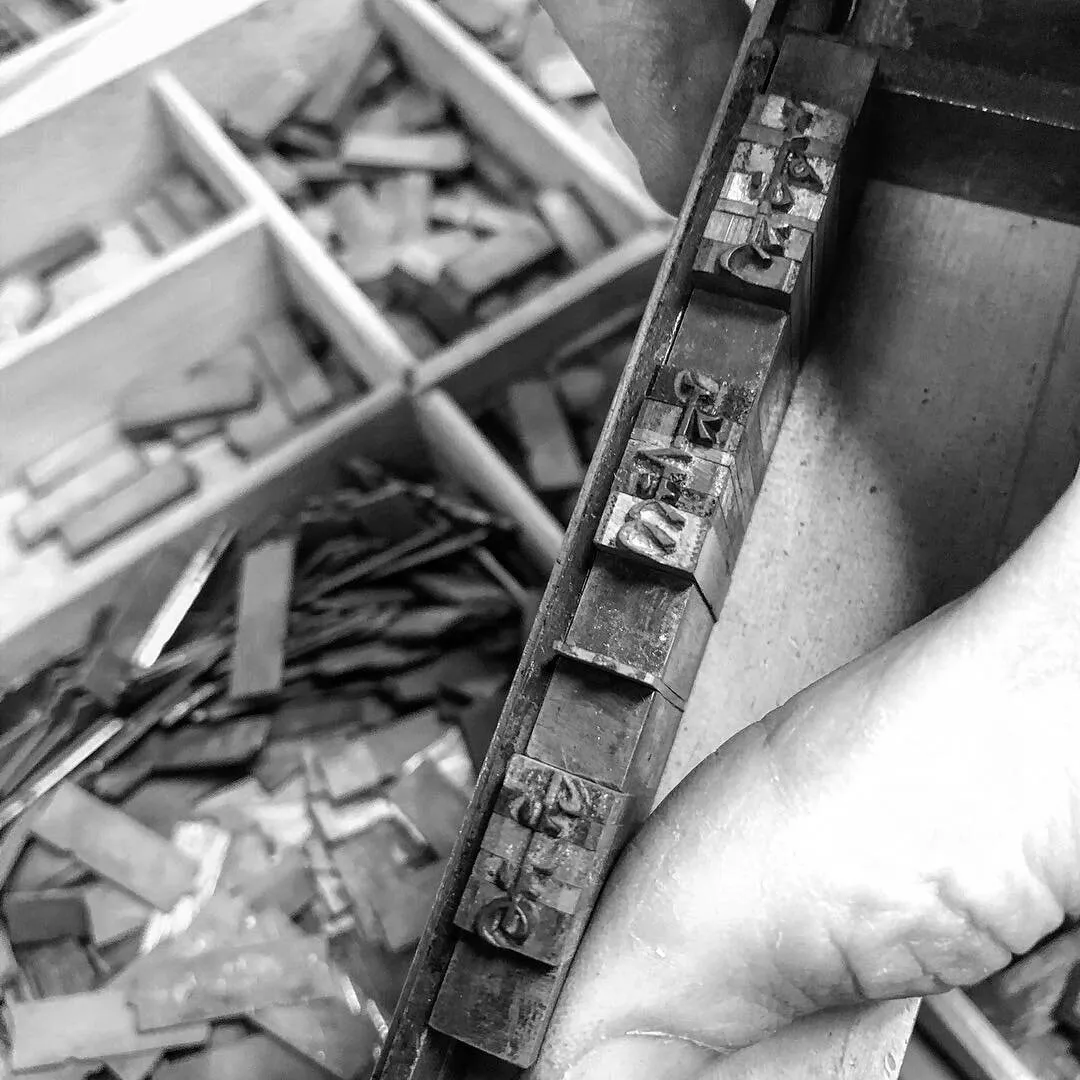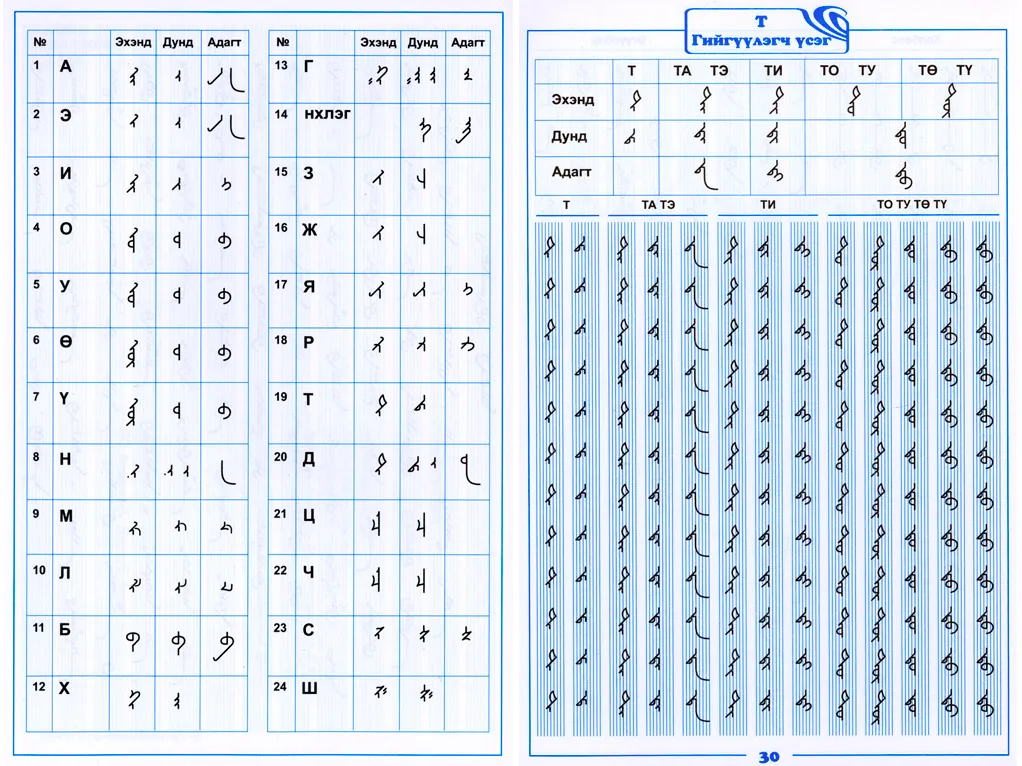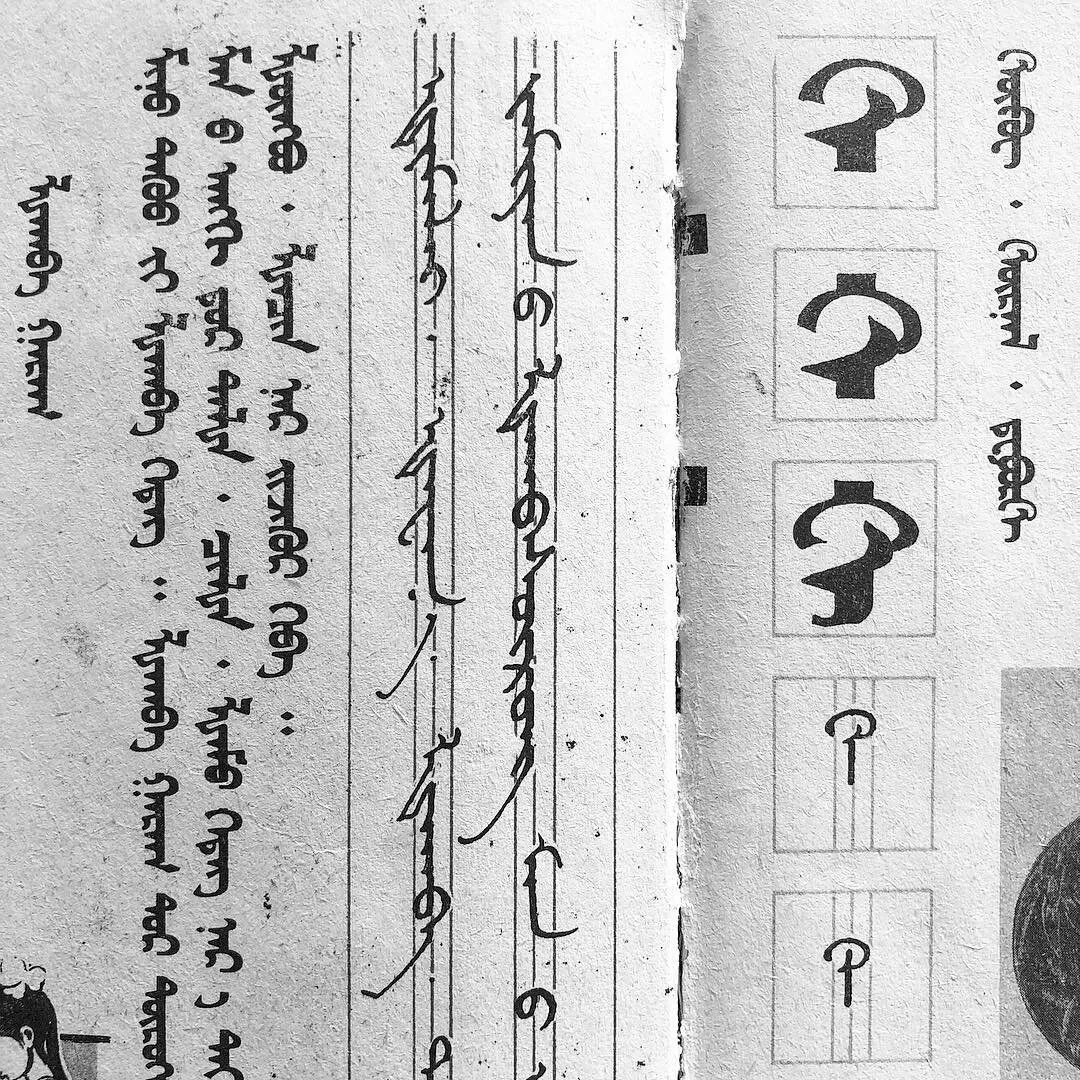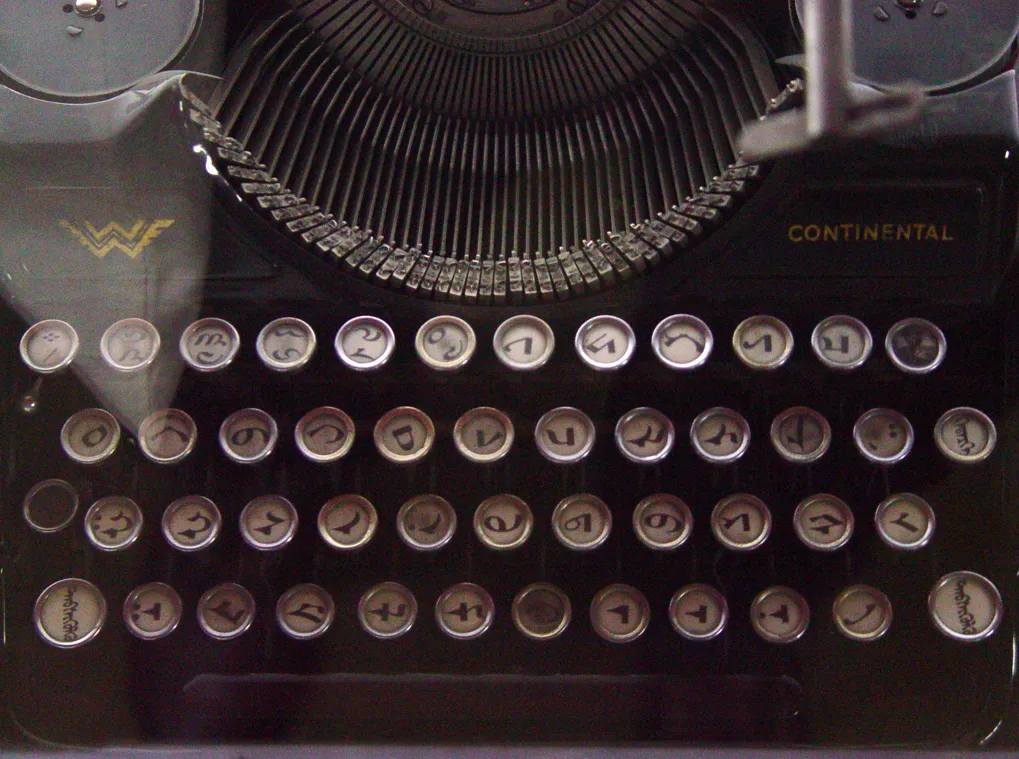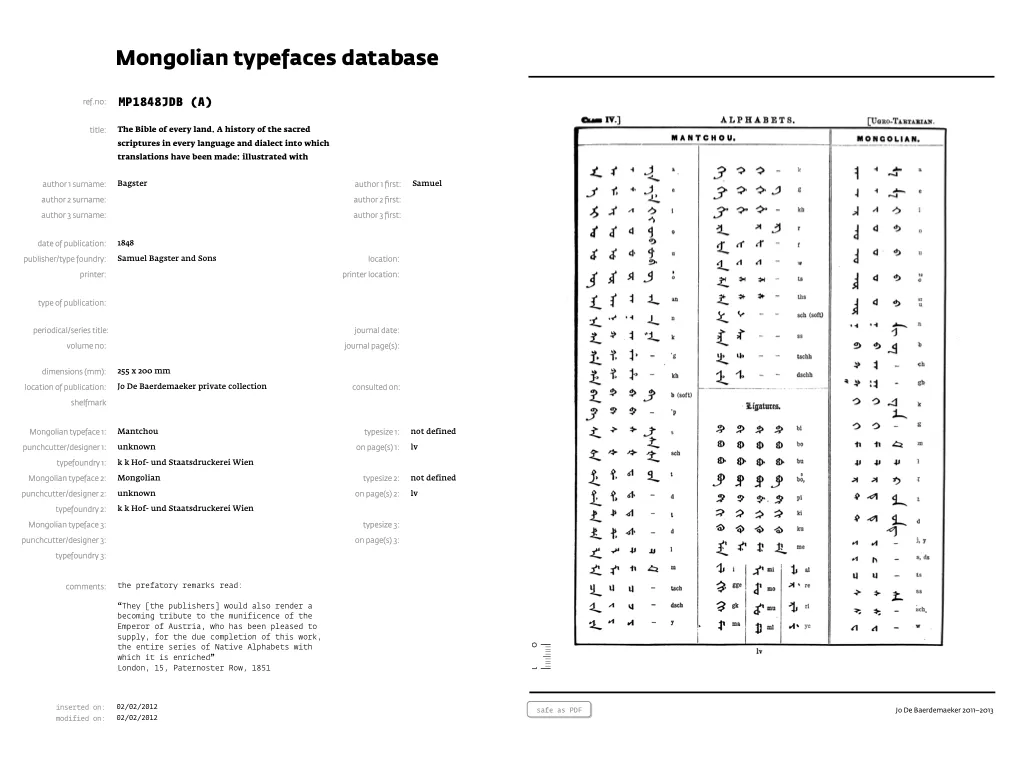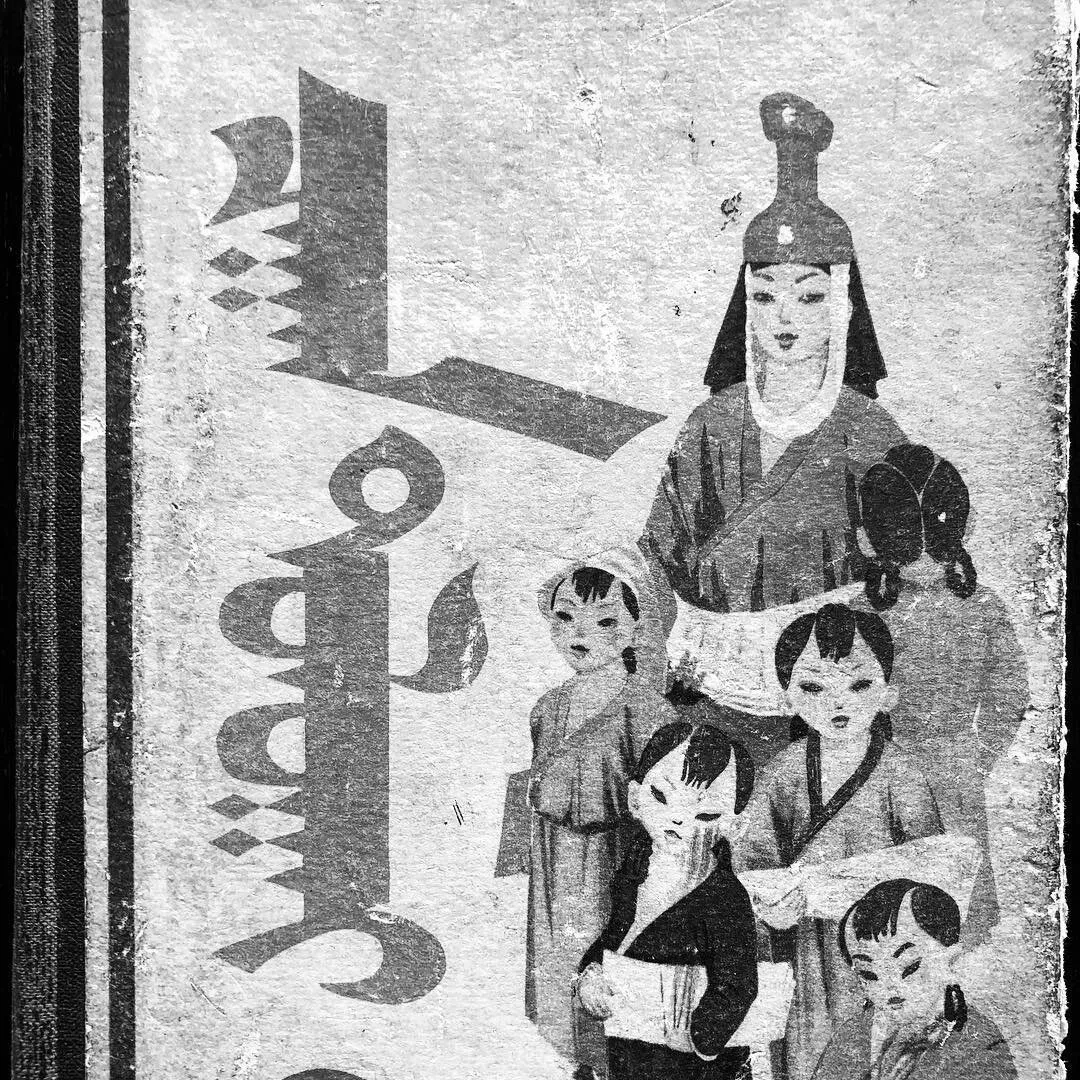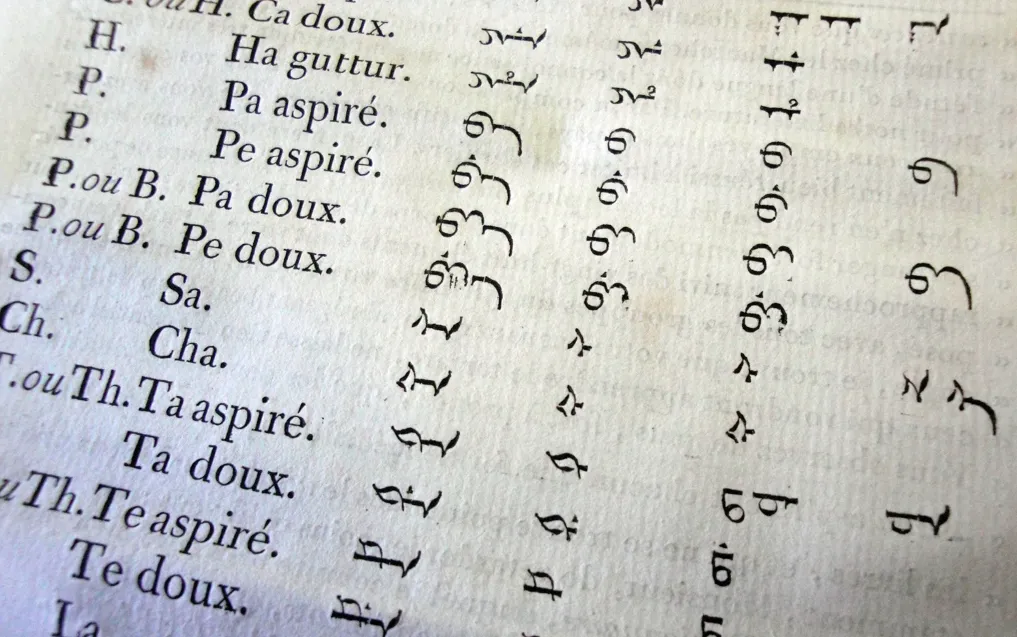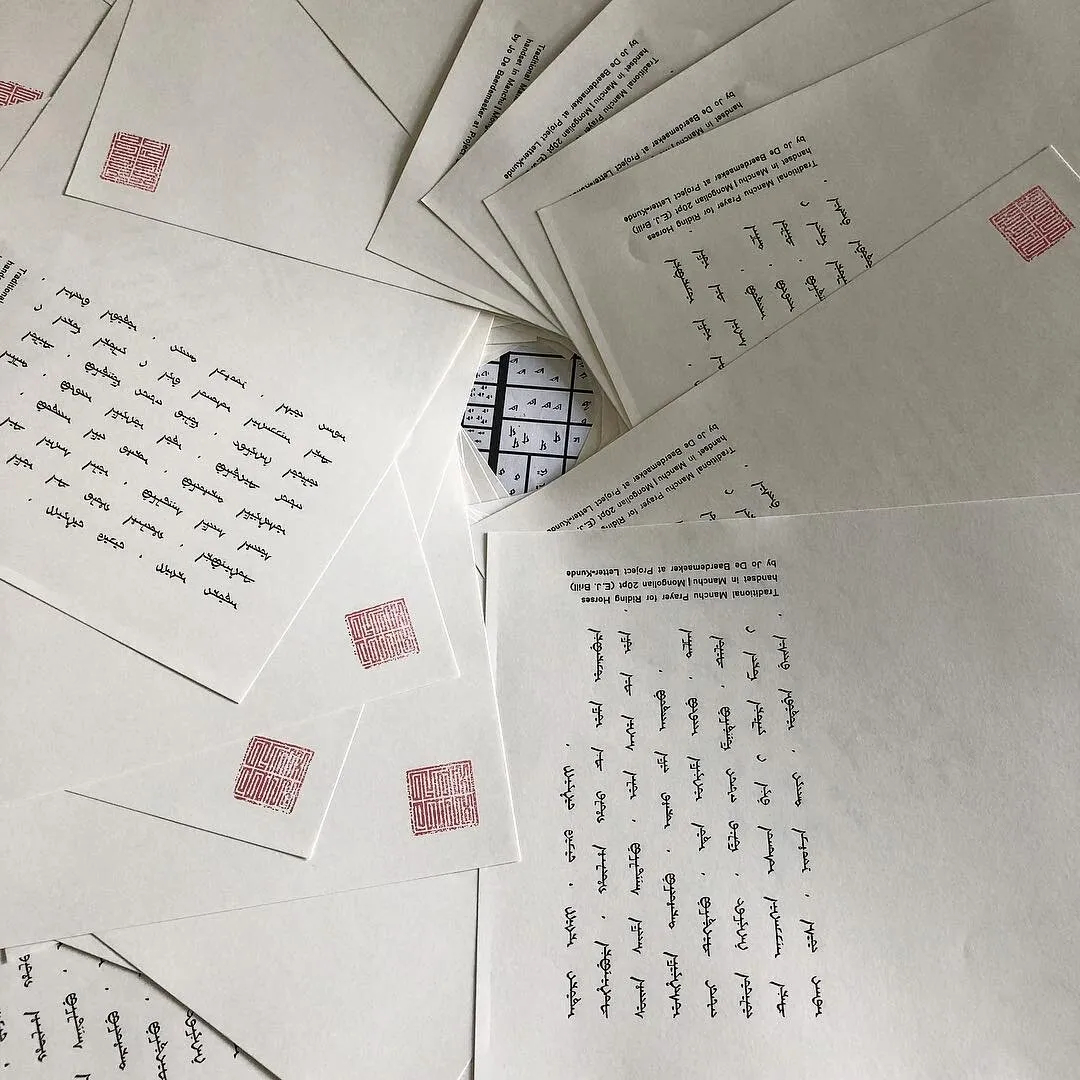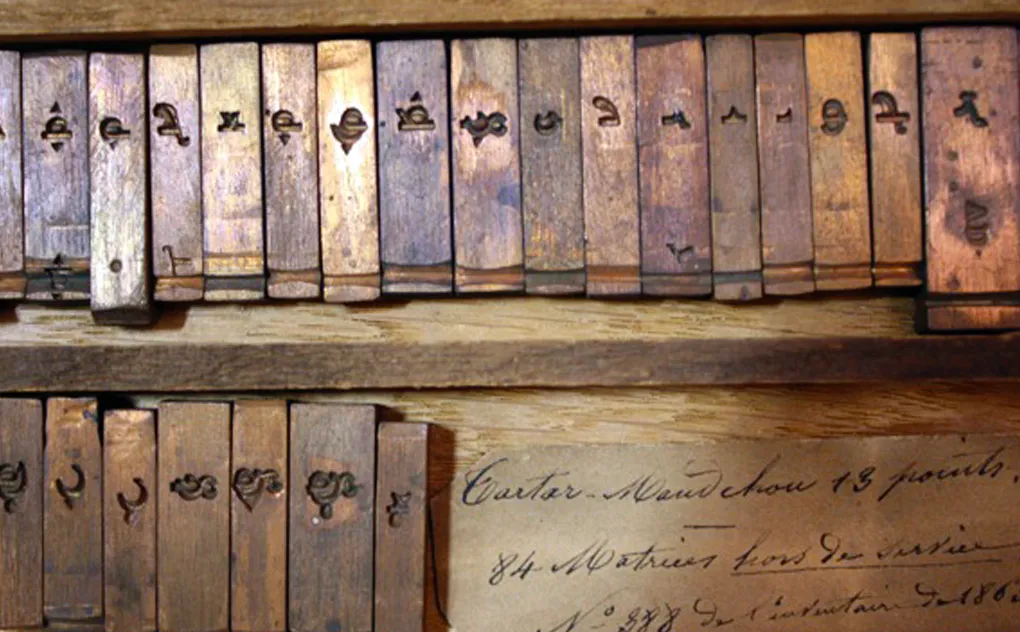
Mongolian script: from metal type to digital font aims to provide a comprehensive historical account of the evolution of the printed Mongolian character, and to offer practice-oriented guidance in designing and developing new digital fonts for the traditional Mongolian script. It adopts the methodology developed and tested in De Baerdemaeker’s work on Tibetan typeforms, which uses an exhaustive historical survey to support critical contemporary analysis.
The prime objectives are to develop a framework for describing the visual and technical quality of Mongolian typefaces; to determine the extent of printing houses using Mongolian typefaces and the connection with the individual punchcutters/type designers or typefoundries & companies of printing material and typesetting equipment creating and/or supplying these founts; to explore how Mongolian typefaces were developed and typeset; and to set up practical guidelines for creating contemporary digital fonts for the traditional Mongolian script.
The project website presents findings and practical guidance supported by theoretical analysis, in conjunction with the database of Mongolian typefaces, publicly available to scholars of Mongolian language and culture, to historians of print, to professional (typeface) designers, software developers, librarians, linguists, academics, and to all those who have an interest in non-Latin typography and typeface design.
The outcome results in practical consultancy with font software companies to improve the tools for creating digital Mongolian fonts, in an online database of Mongolian typefaces and in the publication of a one volume monograph. This talk will outline the objectives of the research project and shed a light on how the material of the various international locations was collected, managed and processed during the research period.